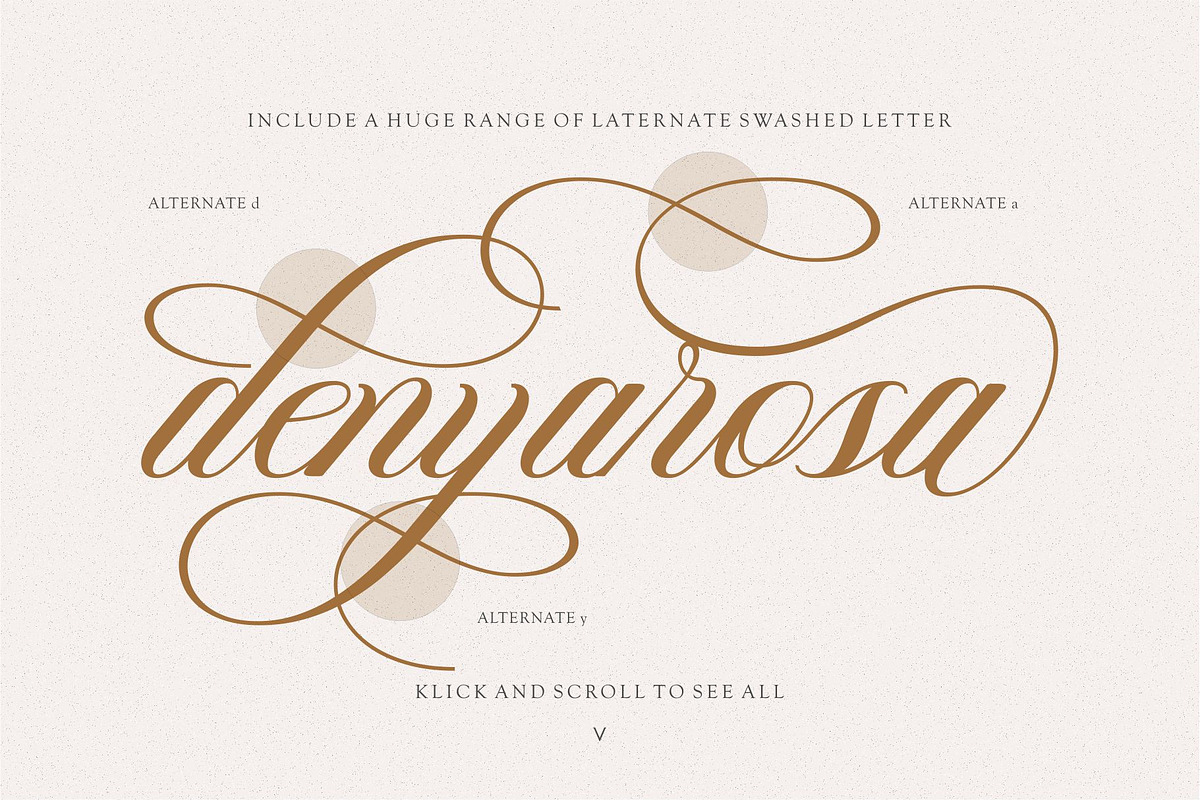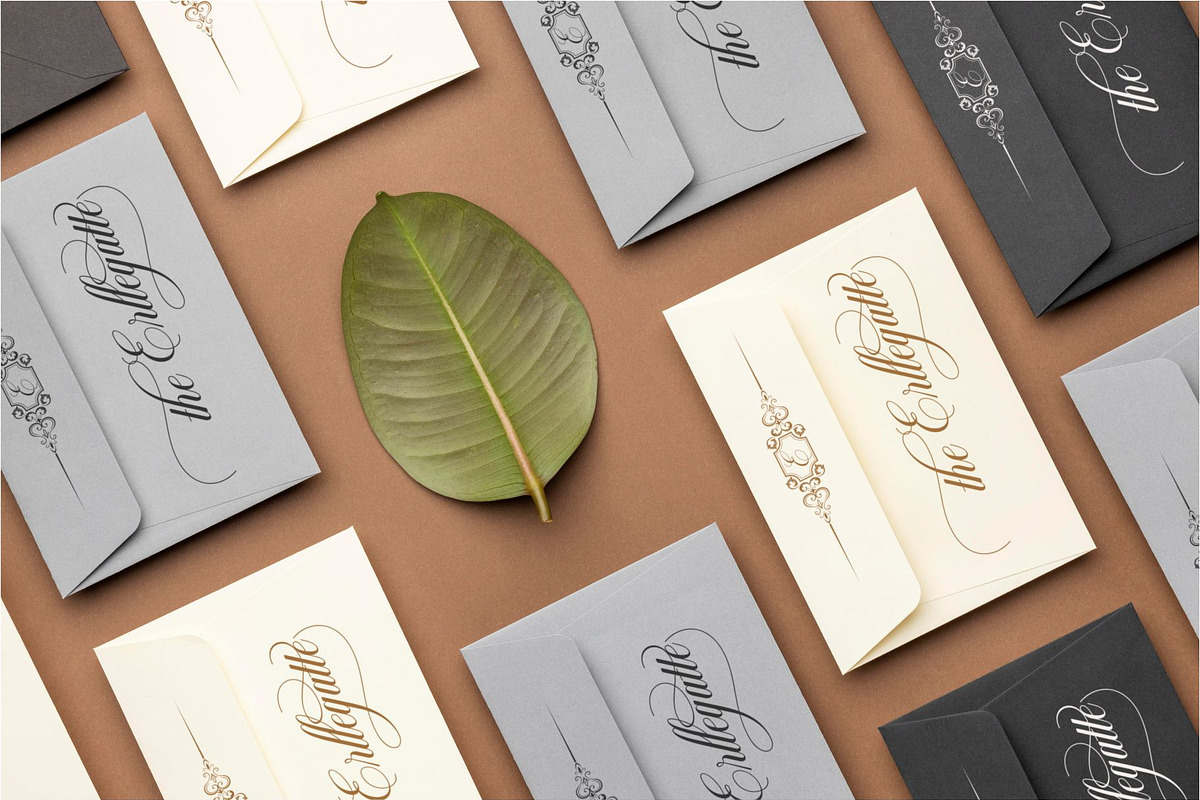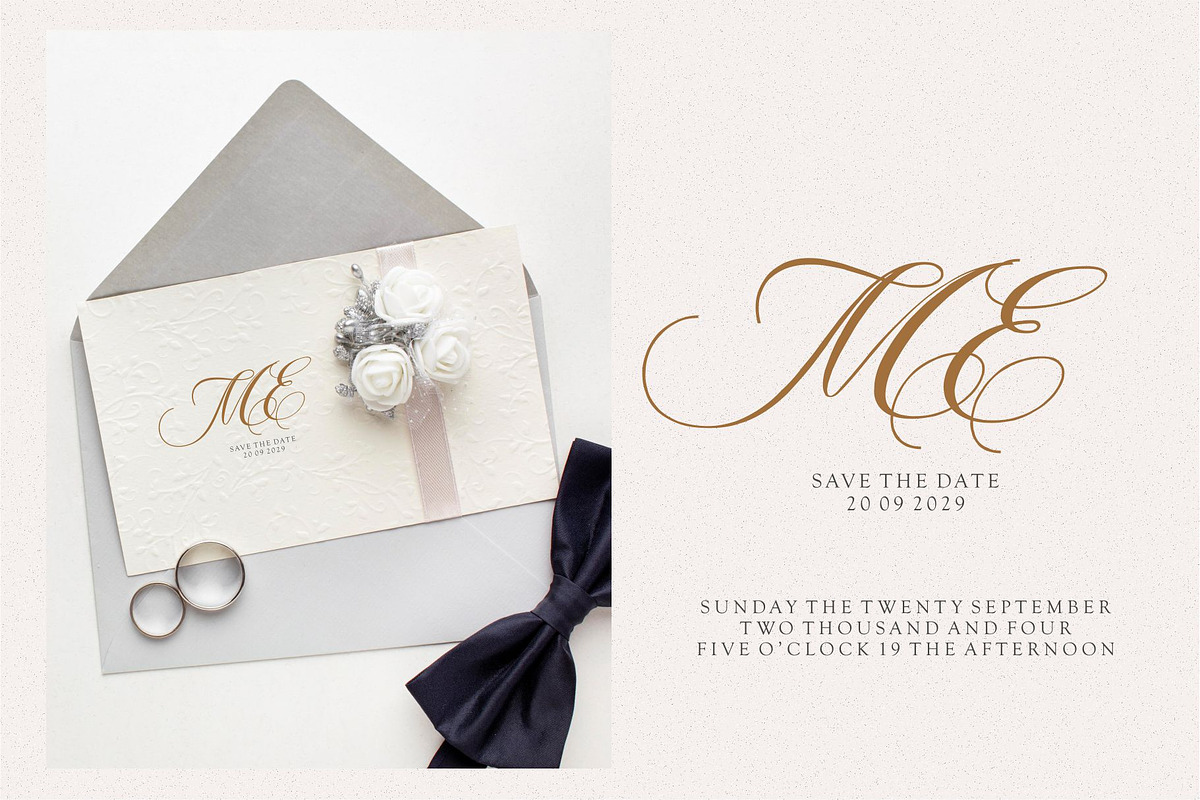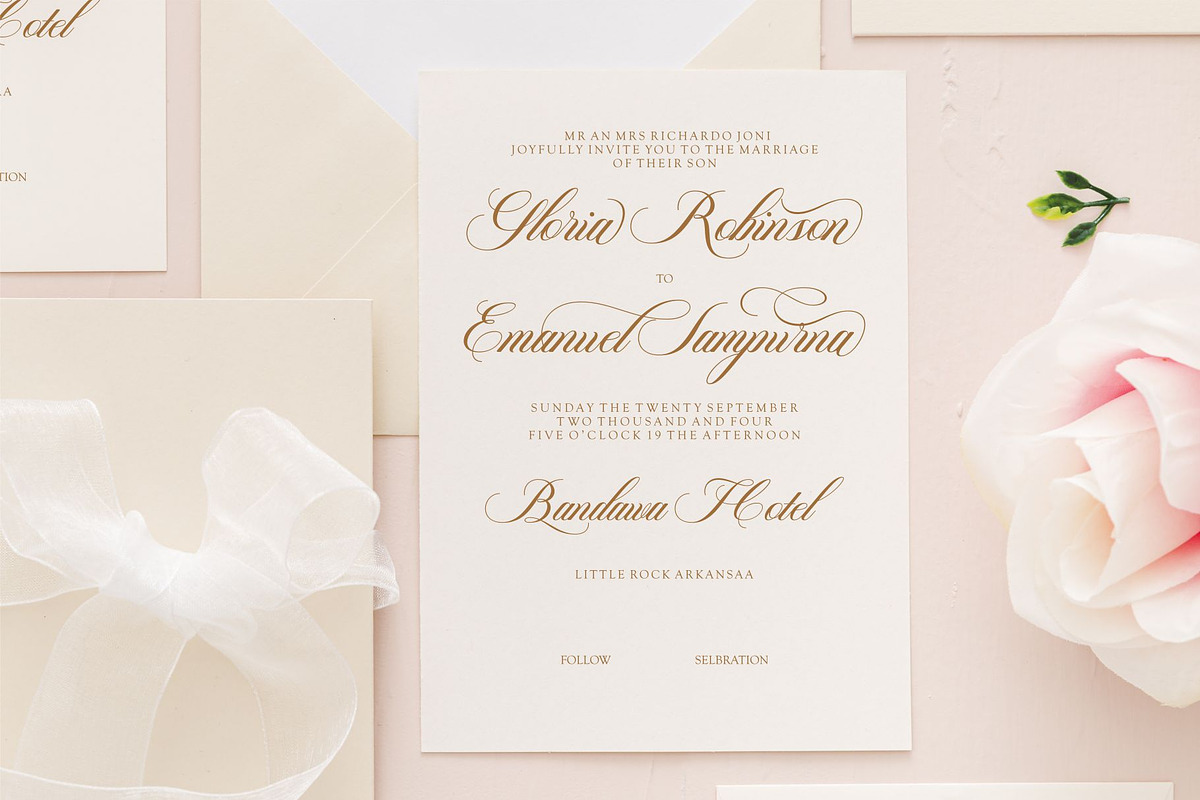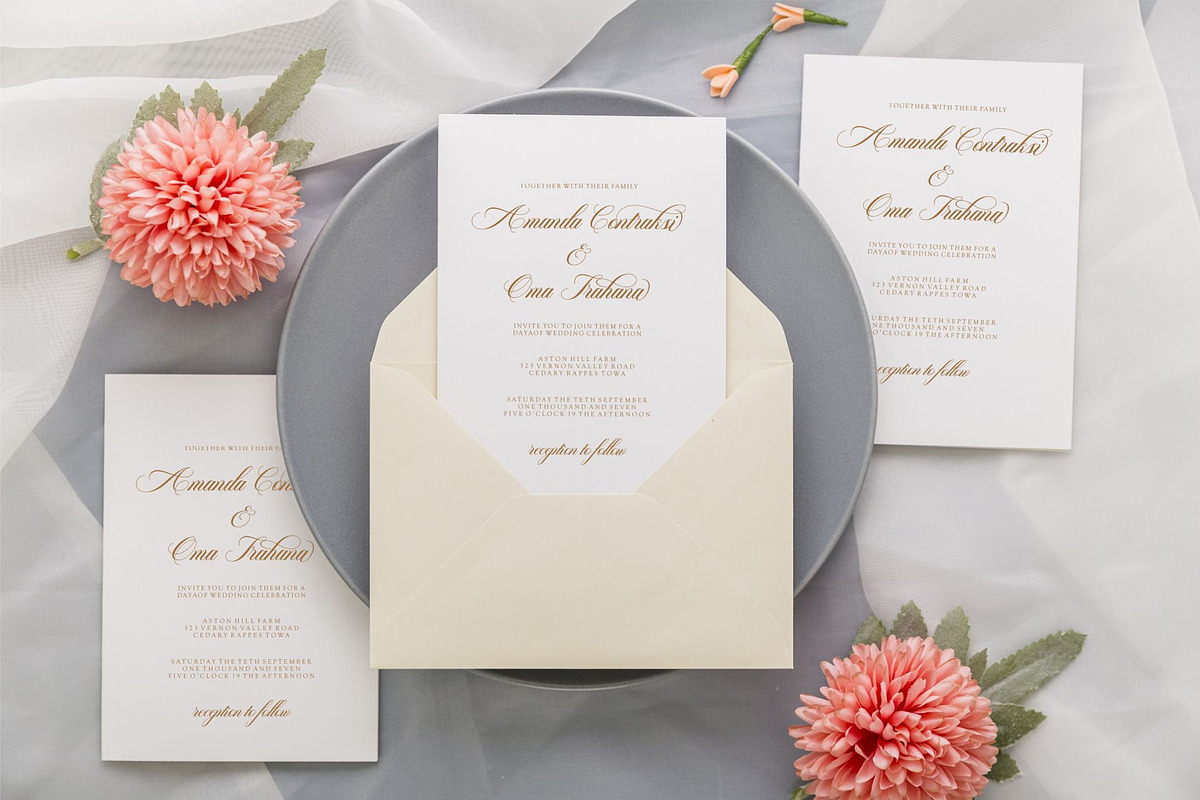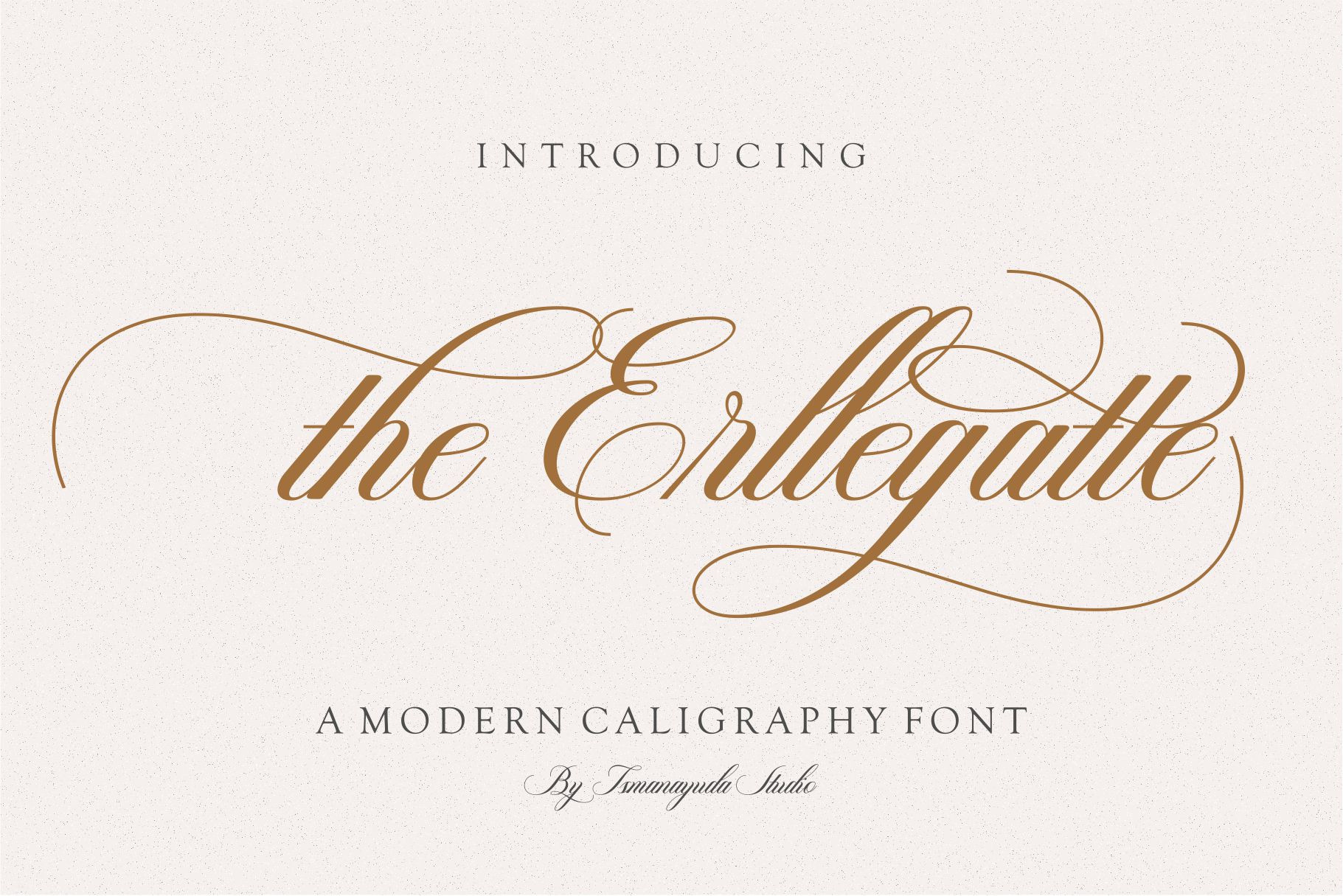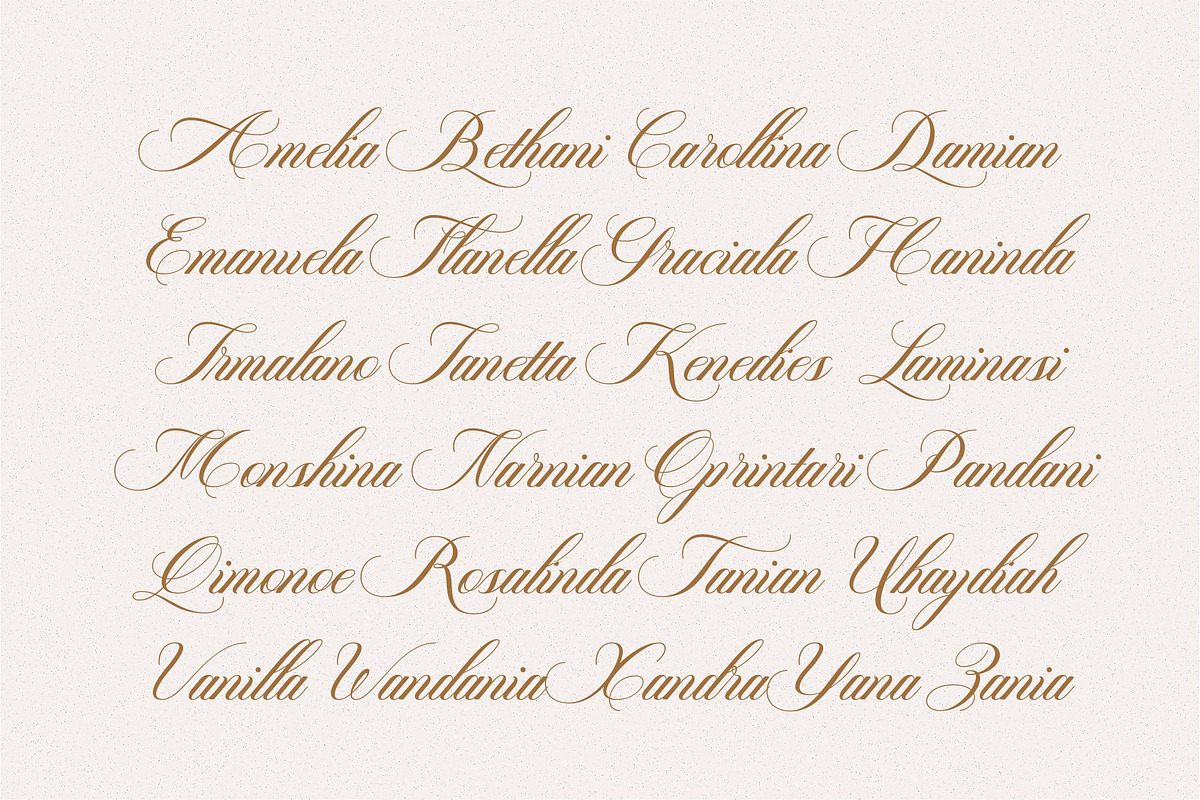
The Erllegatte | Wedding Font
The Erllegatte will be suitable for many projects:
Books, Magazines, Wedding Font, Wedding invitation, Wedding Logos, Branding, Photography, Quotes, Blog headers, Posters, Advertisements, Wedding Invitations, Name Cards etc.